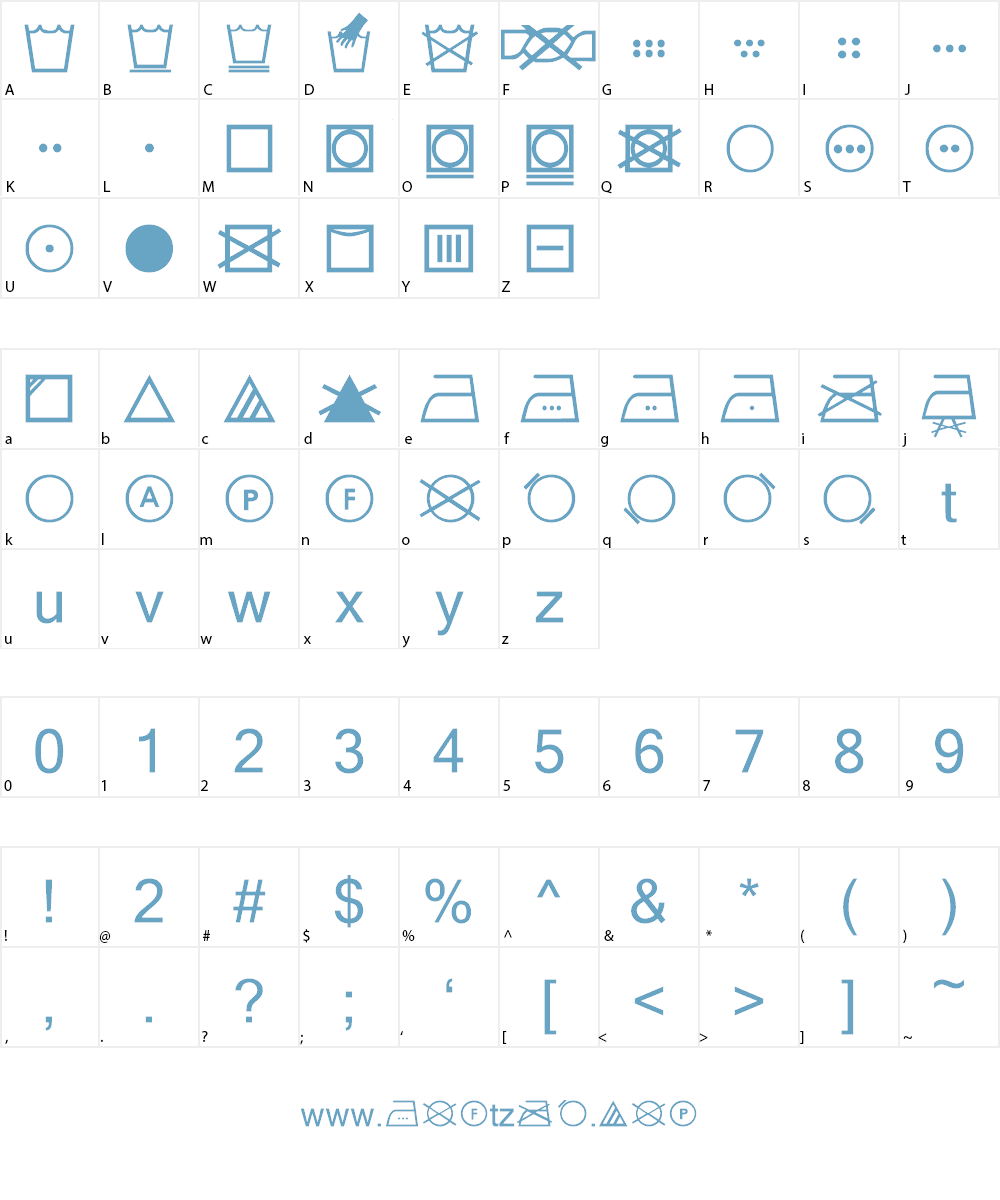
This is the very first font I ever made. These are the symbols one finds on the tags in clothing that represent the fabric care instructions. The included text file contains an explanation of what each symbol means.